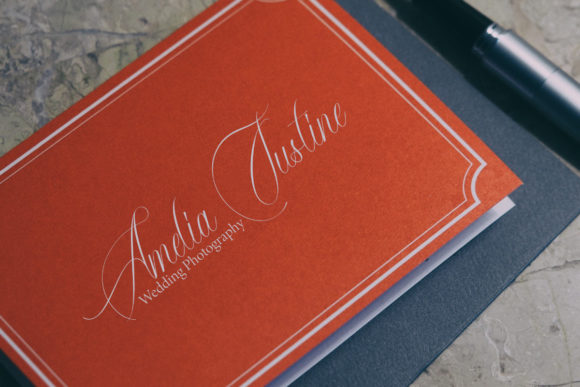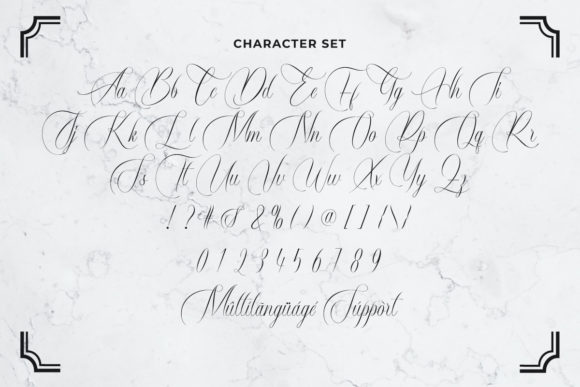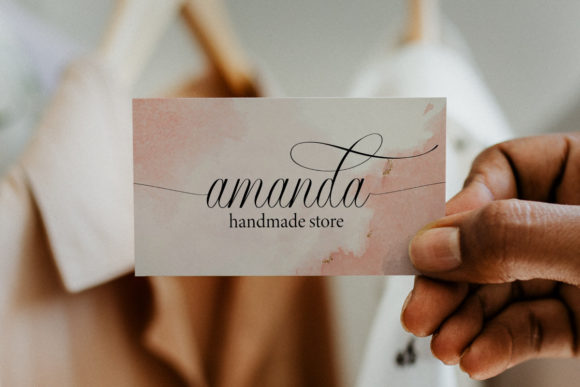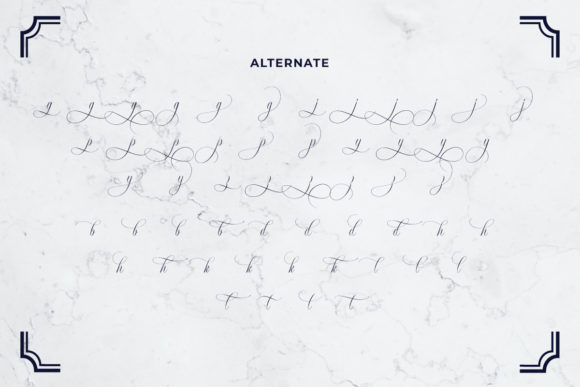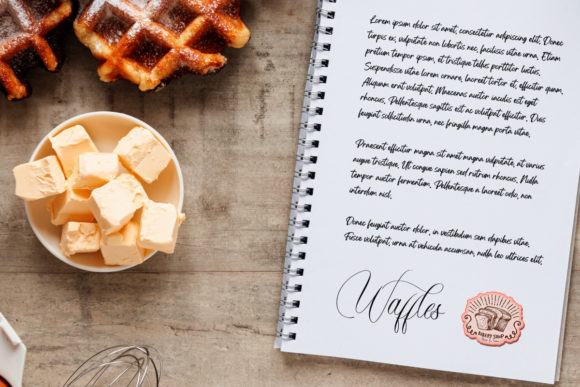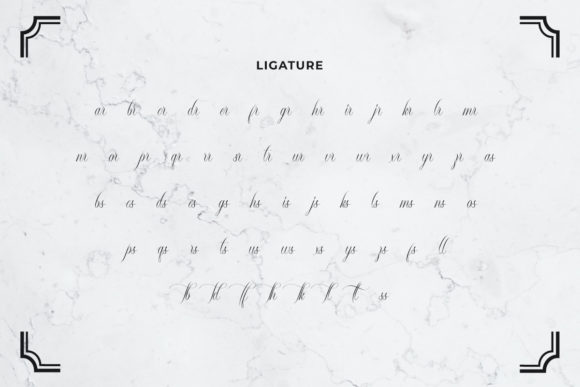
Introducing Charles Mustafa Font: Elevate Your Designs with Elegance and Sophistication
In the world of typography, a font can make or break a design. For designers and crafters looking to add a touch of luxury and sophistication to their projects, Charles Mustafa Font is an exceptional choice. This stunning calligraphy font boasts an array of features that make it perfect for a variety of applications, from invitations and branding to promotions and more.
What Makes Charles Mustafa Font Special?
Charles Mustafa Font is a special calligraphy font that stands out for its sophisticated characters, stylish swashes, and gorgeous alternates. Each character is meticulously crafted to exude elegance and refinement, making it an ideal choice for designs that require a high level of sophistication.
Key Features of Charles Mustafa Font
• Sophisticated Characters: Charles Mustafa Font features beautifully designed characters that are perfect for creating luxurious and high-end designs.
• Stylish Swashes: The font comes with a range of stylish swashes that can be used to add a touch of elegance to your designs.
• Gorgeous Alternates: With a variety of alternate characters, you can add some extra flair to your text and make it truly unique.
• PUA Encoded: Charles Mustafa Font is PUA (Private Use Area) encoded, which means you can access all of the glyphs and swashes with ease.
Charles Mustafa Font is a versatile font that can be used for a wide range of applications, including:
• Invitations: Whether you’re designing wedding invitations, birthday invitations, or any other type of invitation, Charles Mustafa Font is a perfect choice.
• Luxurious Branding: If you’re looking to create a luxurious brand identity, this font is an excellent option.
• Promotions: Use Charles Mustafa Font to create eye-catching promotional materials, such as brochures, flyers, and posters.
• Songs and Music: This font is also perfect for song titles, album covers, and other music-related designs.
Tips for Using Charles Mustafa Font
To get the most out of Charles Mustafa Font, here are a few tips:
• Experiment with Swashes: Don’t be afraid to experiment with the swashes and alternates to add some extra flair to your text.
• Pair with Other Fonts: Charles Mustafa Font pairs well with other fonts, so feel free to experiment with different combinations to find the perfect look.
• Use for Headlines and Titles: This font is perfect for headlines and titles, so use it to add a touch of elegance to your designs.
Charles Mustafa Font is a stunning calligraphy font that is perfect for designers and crafters looking to add a touch of luxury and sophistication to their projects. With its sophisticated characters, stylish swashes, and gorgeous alternates, this font is sure to elevate your designs to the next level. Whether you’re designing invitations, branding materials, promotions, or music-related designs, Charles Mustafa Font is an excellent choice.